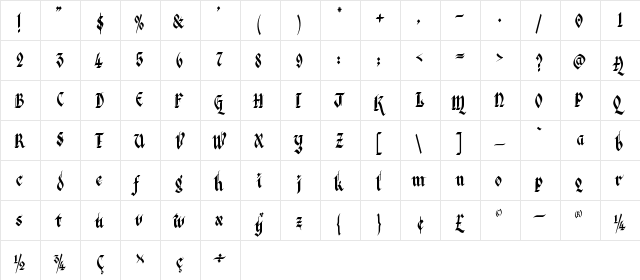
Kingthings Italique Regular
| Designer | Kevin King |
Design Context for Kingthings Italique Typeface
Kingthings Italique is a composed and adaptable typeface that performs quietly and consistently across a wide range of design contexts. Its slender proportions lend an understated elegance to any composition.